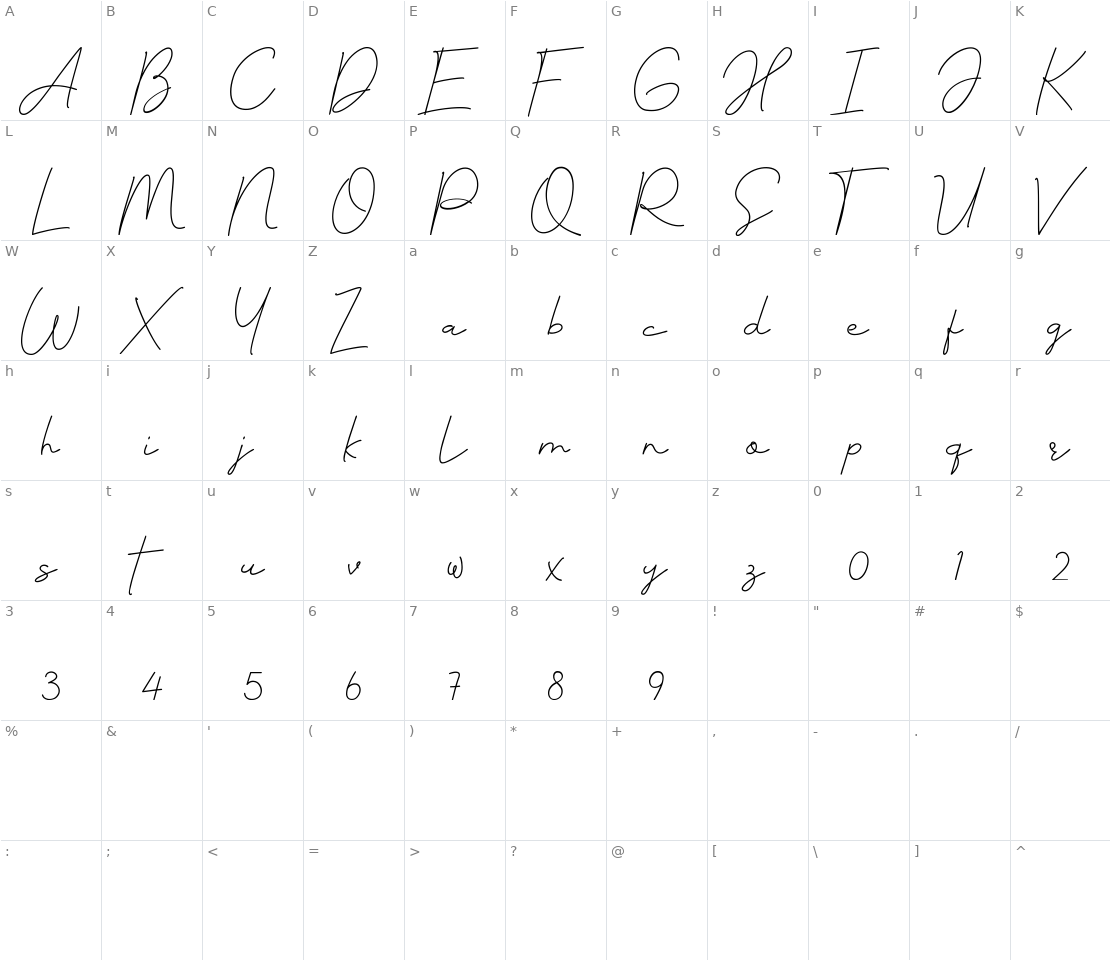
Saitama
Saitama is a thin, flowing cursive from 3rieart with a monoline stroke that keeps every letter feeling effortless and consistent. The minimal weight and connected letterforms give it the look of a real signature rather than a decorative script, making it a natural fit for personal branding, logos, and editorial accents where understated elegance matters more than visual volume.